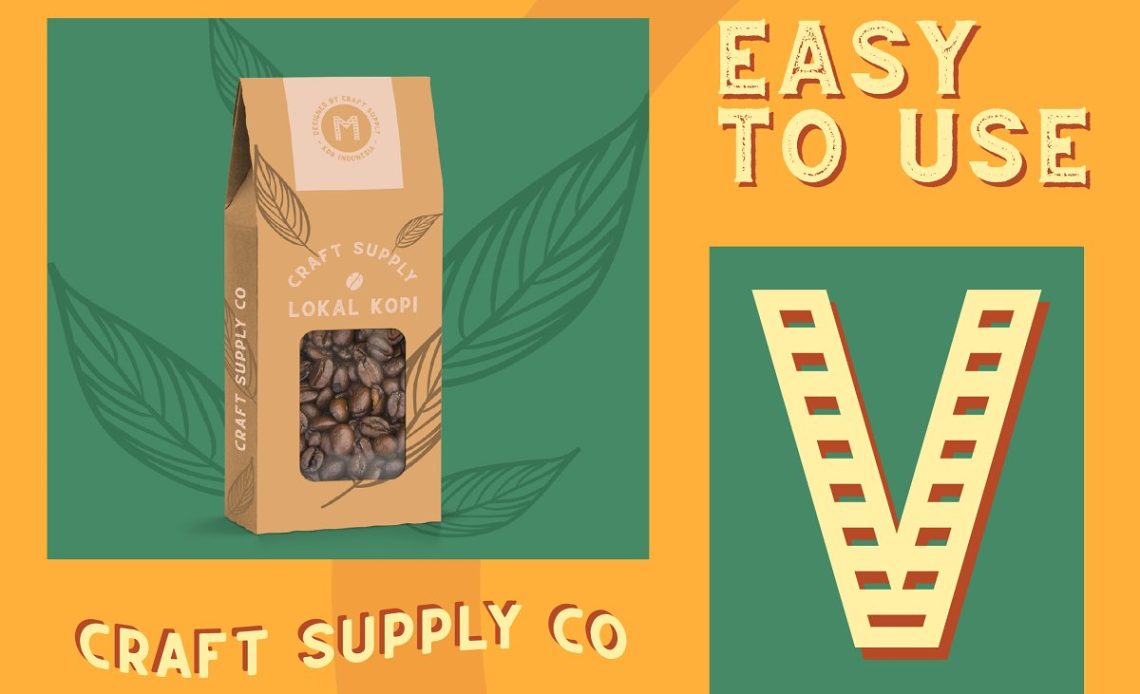
Welcome to the world of CS Gordon Font Family! Created by Trio Nazzar Saputra, this font family has taken the design world by storm. If you're looking for the best font for subway signs, look no further because CS Gordon is here to elevate your designs.
This font family includes nine style fonts that can be used to create almost all types of design projects like print materials. It's perfect for those who want to make a greeting card, package design, or even a brand identity. The possibilities are endless, and you can let your imagination run wild with the patterns and shapes that come with it.